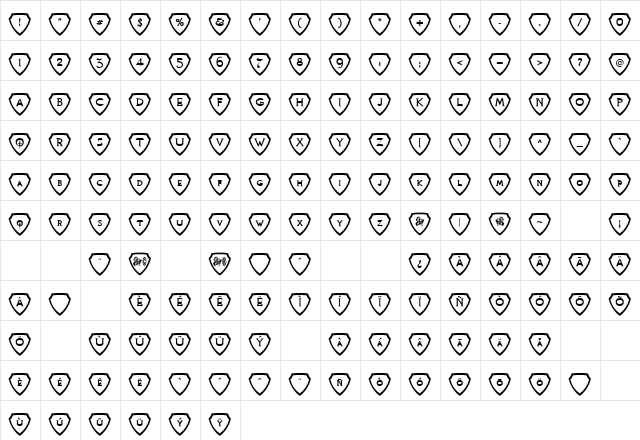
Complete Knights Quest Shielded Regular glyph index. Displaying only characters natively supported by Knights Quest Shielded Regular font.
Knights Quest Shielded is a composed and adaptable typeface that performs quietly and consistently across a wide range of design contexts.